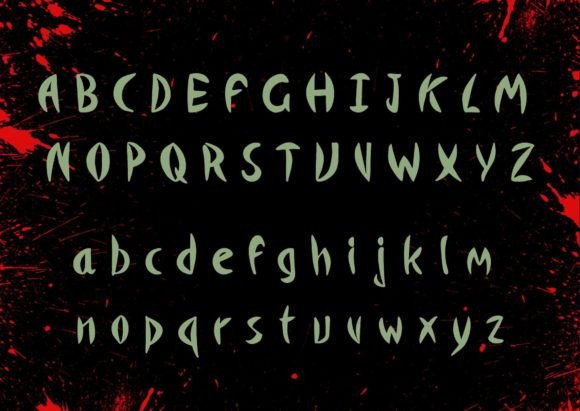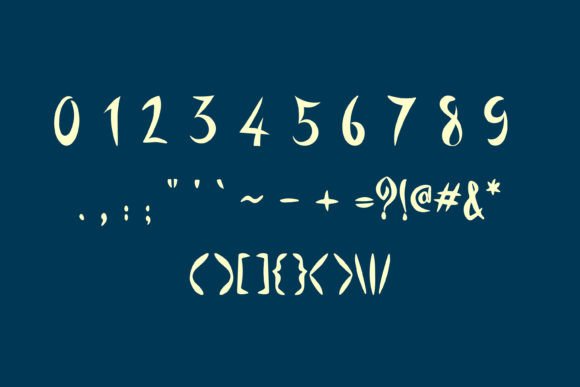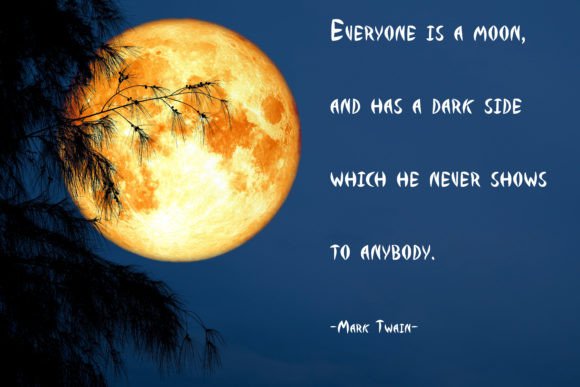
Introduction to Nightmoon Font
NightMoon is a display font that looks like a mysterious font suitable for the cover of a mystery and investigative novel.
Key Features of Nightmoon Font